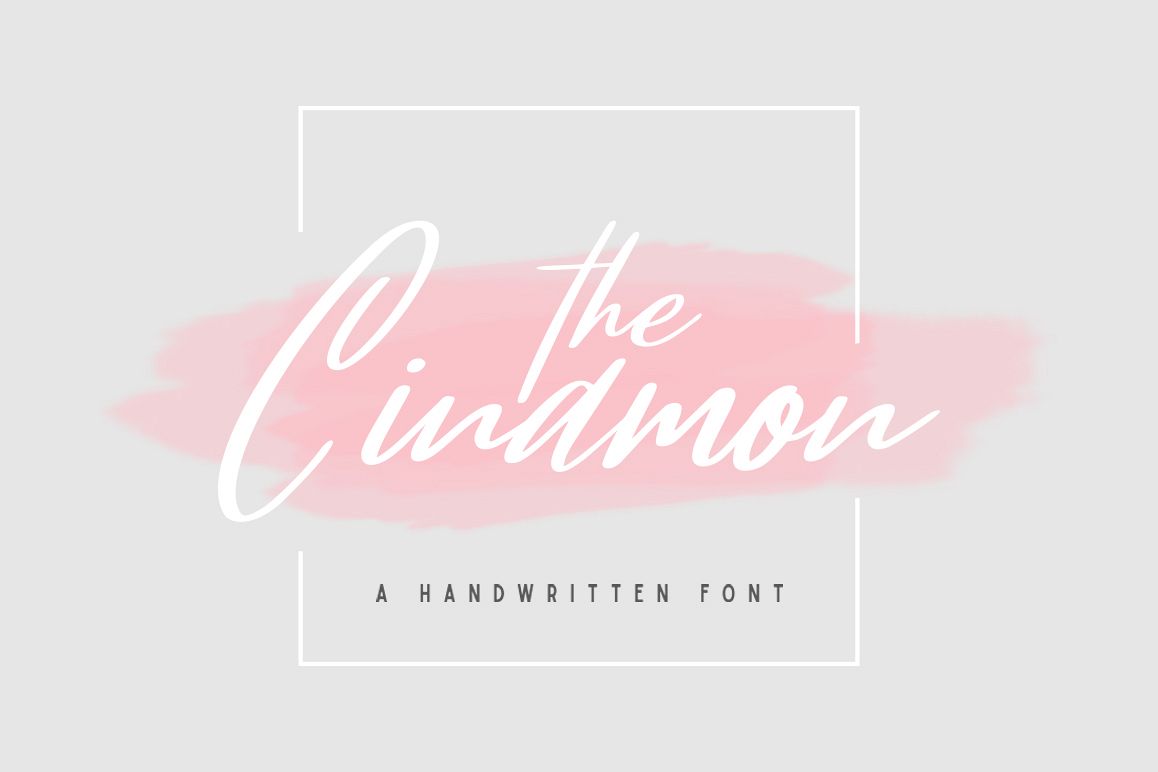
Cinamon Font + Bonus
Cinamon-Regular
Hello! I just released new handwritten font called Cinamon. Cinamon is a handwritten signature font. This font is really easy to use, and is perfect for your branding needs. with this font you can create a feminine logo easily and quickly. 9 Editable Logo Teplates - I provide 9 templates for you as a reference, and editable textWhat You Get